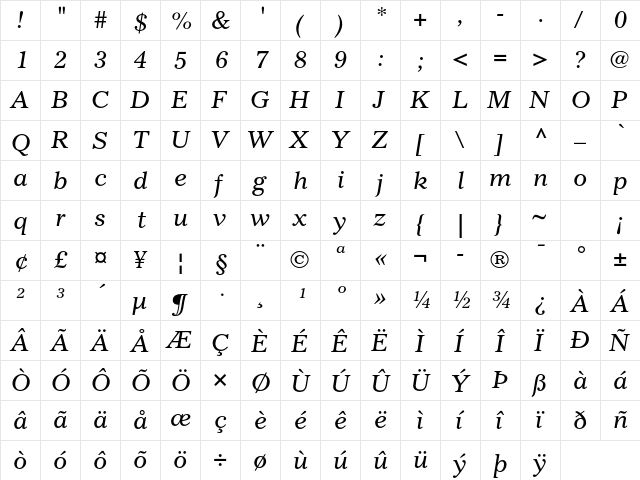
Gazette LT Std Italic Font Preview
Gazette LT Std Italic
Design Context for Gazette LT Std Typeface
Gazette LT Std is a composed and adaptable typeface that performs quietly and consistently across a wide range of design contexts. Its italic angle brings a sense of urgency and motion to the letterforms. Its slender proportions lend an understated elegance to any composition.
Pro Tip: Use Gazette LT Std for emphasis, pull quotes, and subheadings where its slanted energy can add rhythm to the layout.